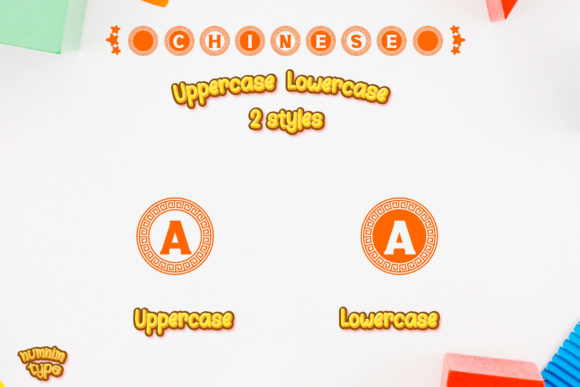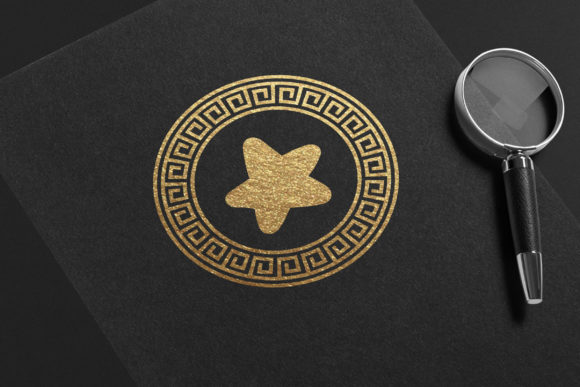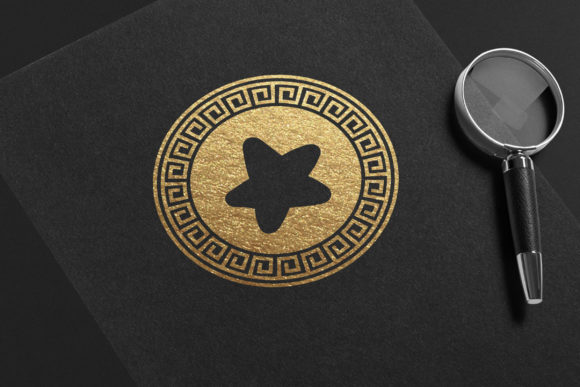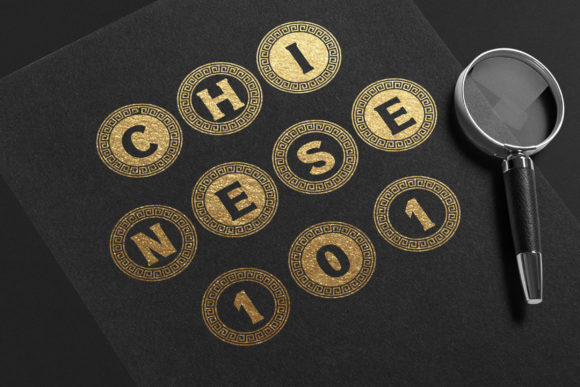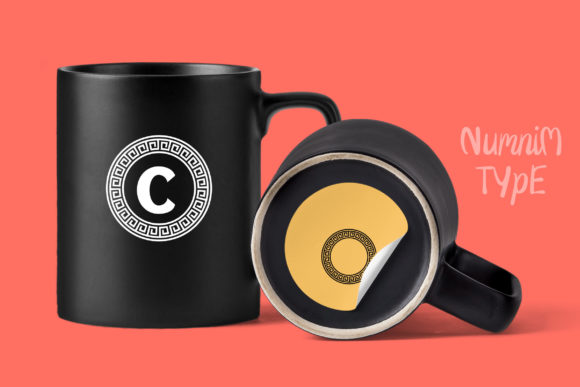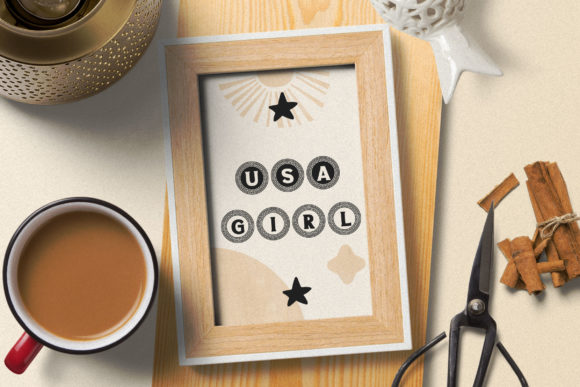
Discover the Vibrant World of Chinese Font: Elevate Your Designs with a Unique Touch
In the realm of typography, few fonts capture the essence of cultural heritage and playful creativity as effectively as the Chinese Font. This cool and uniquely crafted decorative font is not just a style statement; it’s an invitation to infuse your designs with the festive and lively spirit of Chinese culture. Whether you’re working on stickers, ornaments, Chinese New Year’s Day cards, or a myriad of other creative projects, Chinese Font is your go-to choice for adding a bold and distinctive touch.
The Essence of Chinese Font
Chinese Font stands out with its fun and playful characters, meticulously designed to bring a sense of joy and celebration to any design. Each glyph is a masterpiece of creativity, embodying the rich cultural heritage of China in a way that’s both authentic and accessible. The font’s decorative nature makes it perfect for projects that demand a bit of flair and personality, setting it apart from more conventional typefaces.
The versatility of Chinese Font is one of its most compelling features. Designers and crafters can use it to create a wide array of products, including:
- Stickers: Add a pop of personality to your stickers with a font that’s both eye-catching and culturally rich.
- Ornaments: Give your digital or physical ornaments a unique and festive look that stands out.
- Chinese New Year’s Day Cards: Convey the spirit of celebration and renewal with a font that’s deeply connected to the holiday.
- And Many More: From craft projects to digital content, Chinese Font can elevate any design with its distinctive style.
Why Choose Chinese Font?
Choosing Chinese Font for your projects comes with numerous benefits:
- Cultural Significance: Incorporate the essence of Chinese culture into your designs, adding depth and meaning.
- Uniqueness: Stand out in a sea of generic fonts with a typeface that’s both decorative and distinctive.
- Versatility: From digital designs to print materials, Chinese Font adapts to any medium with ease.
Chinese Font is more than just a typeface; it’s a creative tool that bridges cultural richness with playful design. Its unique characters, combined with the convenience of PUA encoding, make it an indispensable asset for designers and crafters looking to add a bold and festive touch to their projects. Whether you’re celebrating Chinese New Year or simply looking for a font that stands out, Chinese Font is your perfect companion. Dive into the world of vibrant typography and let your designs shine with the distinctive charm of Chinese Font.